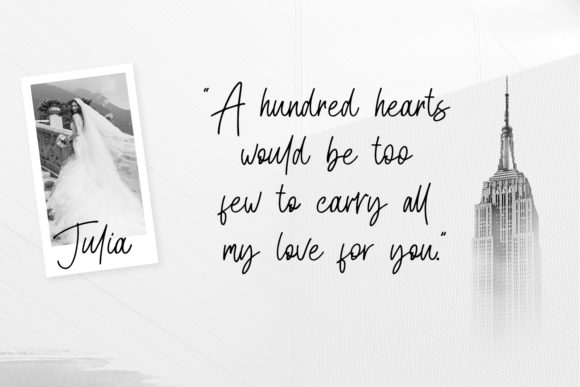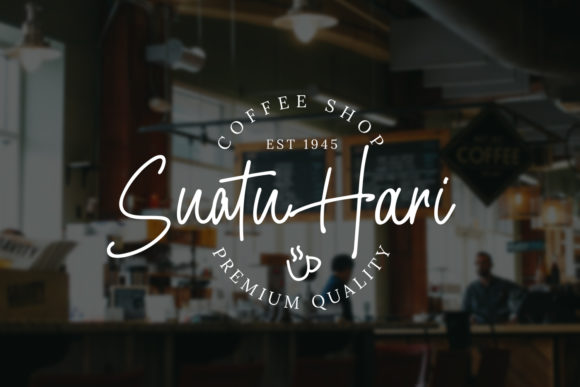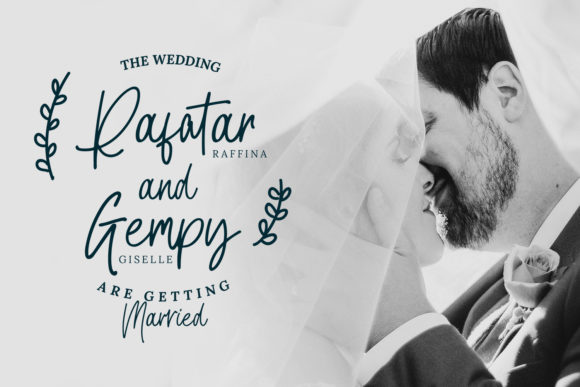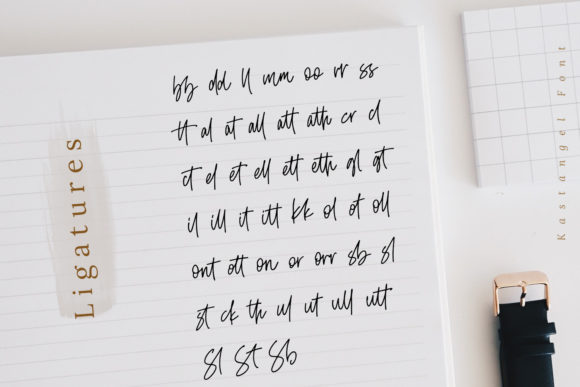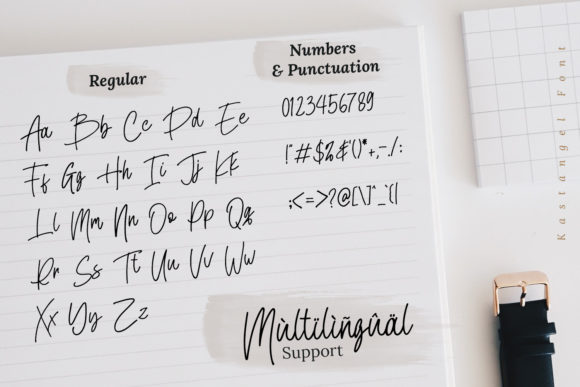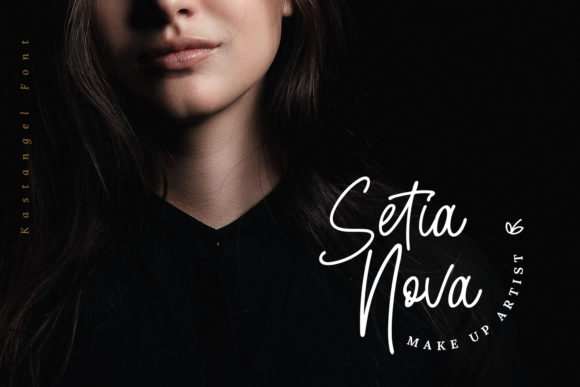
Introduction to Kastangel Font
Kastangel is a light and casual script with a timeless look.
Use it to add a personal touch to any design idea .
Key Features of Kastangel Font
Why Choose Kastangel Font?
Kastangel Font offers exceptional quality and versatility, making it a valuable addition to your design toolkit. Whether you’re creating for personal projects or commercial use, Kastangel Font delivers professional results.